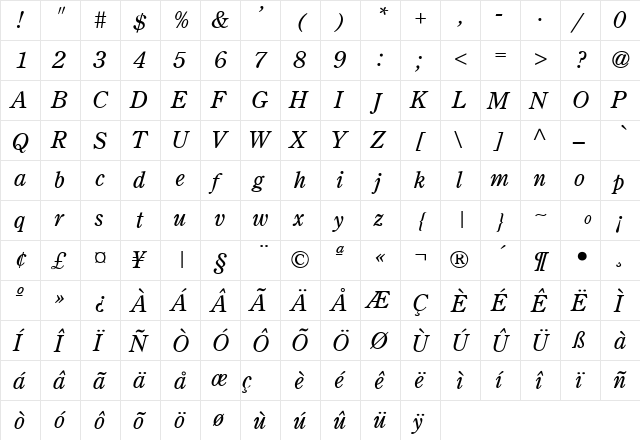
BackRoad Modern Italic Italic
Design Context for BackRoad Modern Italic Typeface
BackRoad Modern Italic takes a measured approach to typography — its balanced proportions and neutral character make it a reliable workhorse for both digital and print work. The slanted form adds forward momentum and visual energy.